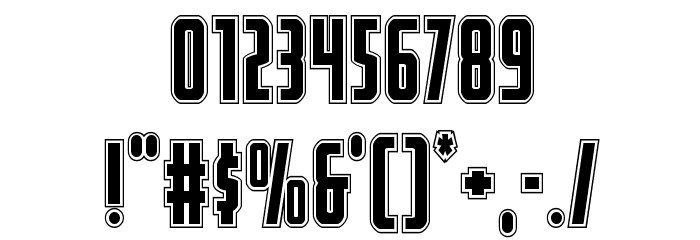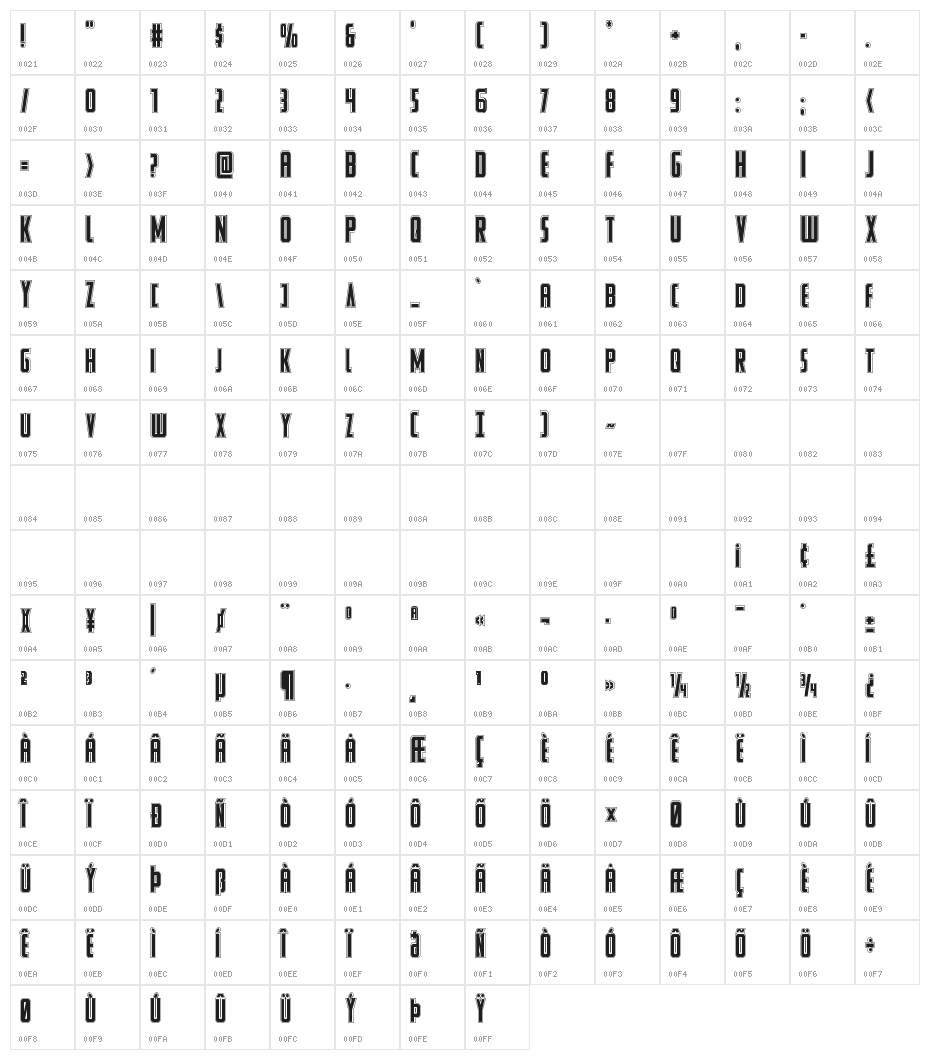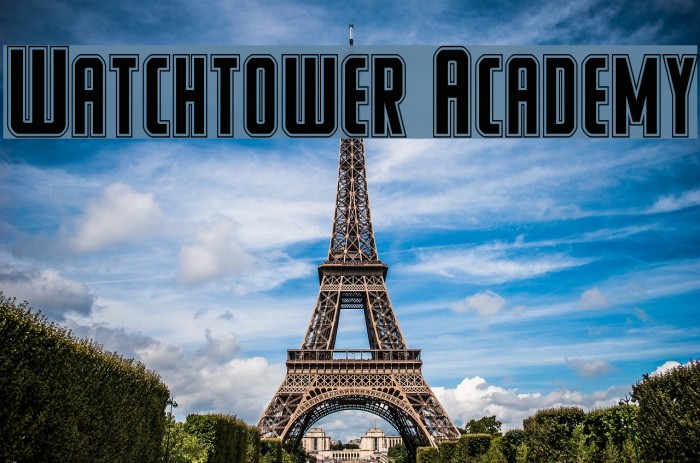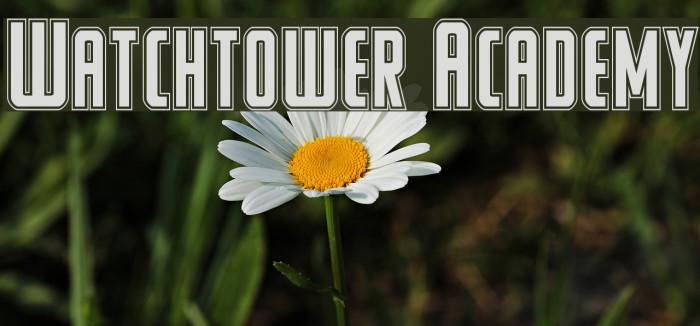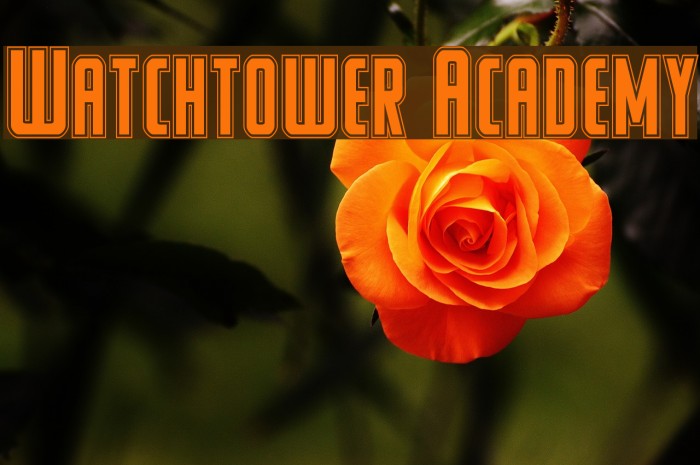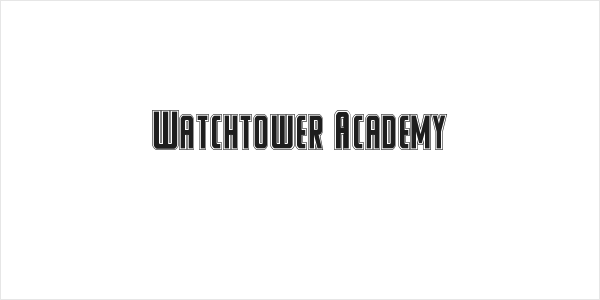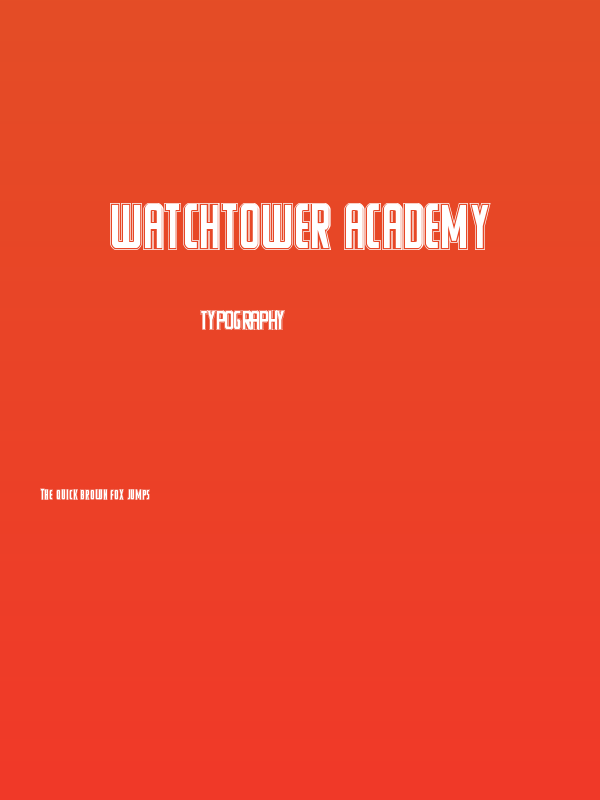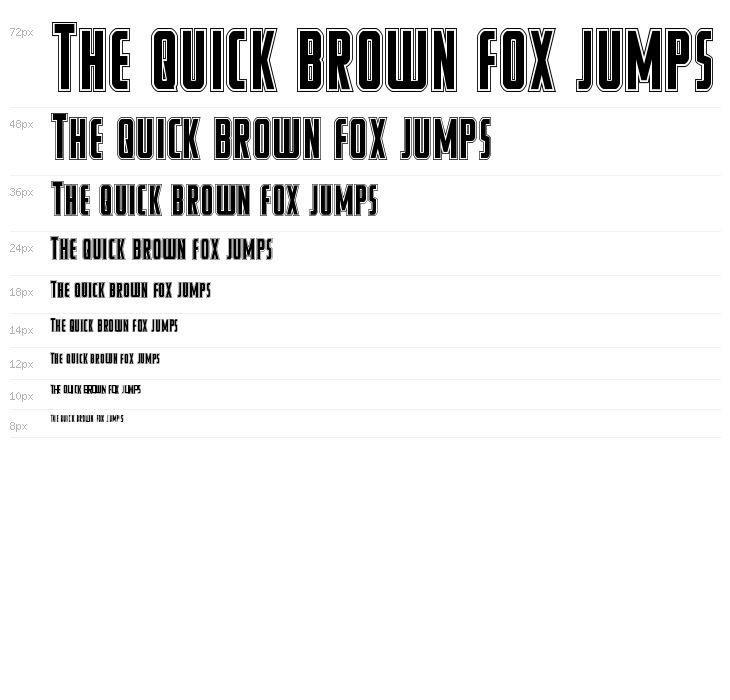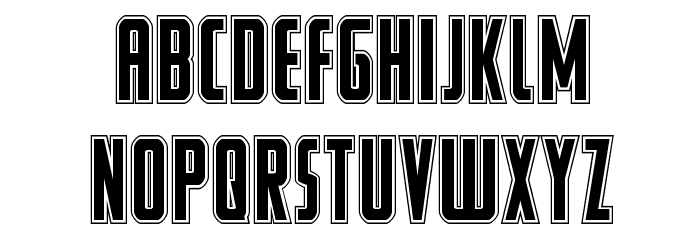
Watchtower Academy Font
Watchtower Academy Description
This font features a bold, impactful design with a strong presence. The characters are outlined, creating a striking visual effect that enhances readability and adds a layer of depth. The uppercase and lowercase letters maintain a consistent style, with sharp edges and uniform stroke widths. The numerals and special characters are designed to match the overall aesthetic, ensuring a cohesive look across all text elements. This font is ideal for projects that require a bold statement, such as posters, headlines, and branding materials.
| Proposed Projects | Ideal for posters, headlines, branding, and any project needing a bold statement. |